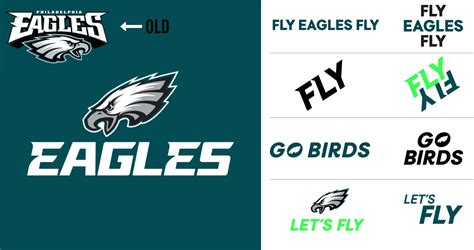
The Philadelphia Eagles, a storied franchise in the National Football League (NFL), have a rich history that spans decades. One of the most recognizable aspects of the team's brand is its distinctive logo and typography, often referred to as the *Philadelphia Eagles Font*. This font is not just a visual element; it is a symbol of the team's identity and a crucial part of its marketing strategy. Understanding the significance and usage of the Philadelphia Eagles Font can provide valuable insights into the world of sports branding and typography.
The History of the Philadelphia Eagles Font
The Philadelphia Eagles were founded in 1933 and have since become one of the most beloved teams in the NFL. The team's logo, featuring an eagle with outstretched wings, has undergone several iterations over the years. The font used in the team's logo and branding has also evolved, reflecting changes in design trends and the team's identity.
The current Philadelphia Eagles Font is a bold, modern typeface that exudes strength and power, much like the team itself. The font is characterized by its clean lines, sharp edges, and a slightly condensed appearance, which makes it highly legible and impactful. This design choice aligns with the team's aggressive playing style and its commitment to excellence.
Key Features of the Philadelphia Eagles Font
The Philadelphia Eagles Font is designed to be both visually appealing and highly functional. Some of the key features that set it apart include:
- Bold and Strong: The font's thick strokes and sharp angles convey a sense of power and dominance, reflecting the team's competitive spirit.
- Modern and Clean: The font's modern design makes it versatile and suitable for a wide range of applications, from jerseys and merchandise to digital media and print materials.
- Highly Legible: Despite its bold appearance, the font remains highly legible, ensuring that the team's name and branding are easily recognizable.
- Condensed Appearance: The slightly condensed design of the font allows for more text to fit in a smaller space, making it ideal for use on jerseys and other branded items.
Usage of the Philadelphia Eagles Font
The Philadelphia Eagles Font is used extensively in the team's branding and marketing efforts. Some of the most common applications include:
- Jerseys and Uniforms: The font is prominently featured on the team's jerseys and uniforms, making it a visible part of the players' on-field presence.
- Merchandise: The font is used on a wide range of merchandise, including hats, t-shirts, and other apparel, helping to reinforce the team's brand identity.
- Digital Media: The font is used in the team's digital media, including its website, social media channels, and online advertisements, ensuring a consistent brand image across all platforms.
- Print Materials: The font is also used in the team's print materials, such as brochures, posters, and promotional materials, helping to create a cohesive and recognizable brand.
One of the most notable uses of the Philadelphia Eagles Font is on the team's helmets. The font is prominently displayed on the sides of the helmets, making it a visible part of the team's on-field presence. This placement ensures that the font is seen by fans and viewers during games, reinforcing the team's brand identity.
Designing with the Philadelphia Eagles Font
If you're a designer looking to incorporate the Philadelphia Eagles Font into your projects, there are a few key considerations to keep in mind. First and foremost, it's important to understand the font's unique characteristics and how they can be used to enhance your design. Here are some tips for working with the Philadelphia Eagles Font:
- Pairing with Other Fonts: The Philadelphia Eagles Font pairs well with a variety of other fonts, but it's important to choose complementary typefaces that don't overshadow the Eagles' distinctive style. Consider using a sans-serif font for body text to create a clean and modern look.
- Color Schemes: The font's bold and strong appearance makes it well-suited for use with vibrant color schemes. Consider using the team's official colors, green and white, to create a cohesive and recognizable design.
- Scalability: The font's condensed appearance makes it ideal for use in a variety of sizes, from large headlines to small body text. Experiment with different sizes to find the best fit for your design.
- Consistency: To maintain a consistent brand image, it's important to use the Philadelphia Eagles Font consistently across all of your design projects. This includes using the same font weight, size, and color scheme in all of your materials.
When designing with the Philadelphia Eagles Font, it's also important to consider the context in which the font will be used. For example, if you're designing a poster for a game, you may want to use a larger font size to ensure that the text is easily readable from a distance. On the other hand, if you're designing a digital advertisement, you may want to use a smaller font size to fit more text into a limited space.